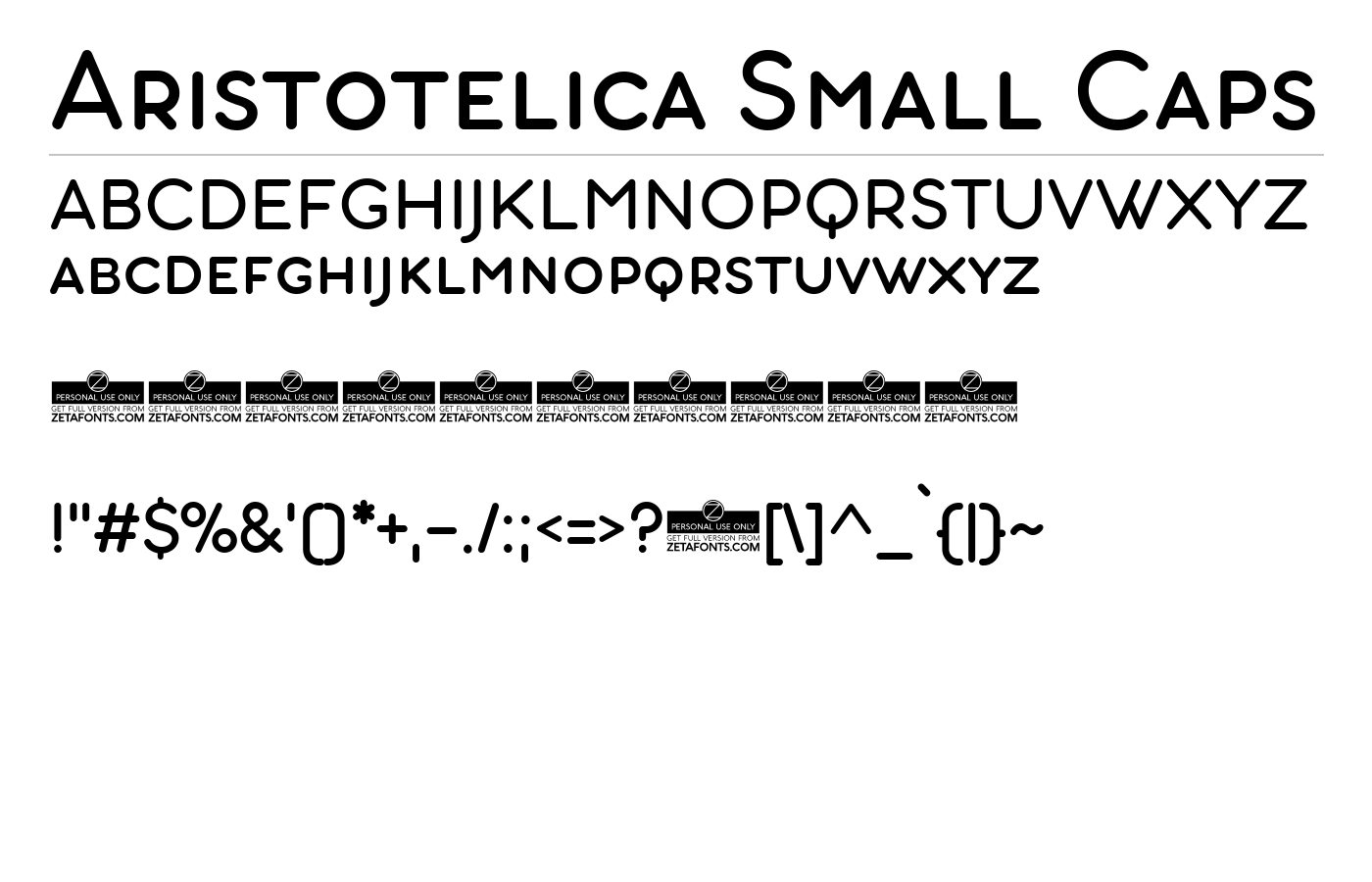
Aristotelica Small Caps is a clean and modern sans serif font featuring geometric, rounded letterforms with consistent stroke weight and a medium x-height. Its small caps style and straightforward design give it a refined yet approachable look, making it suitable for branding, headlines, and editorial use where clarity and a touch of sophistication are desired. This font works well for projects seeking a contemporary, friendly, and professional tone.
Aristotelica Small Caps Font
About Aristotelica Small Caps Font
| Font family | Aristotelica Small Caps Font |
| Designer | Francesco Canovaro |